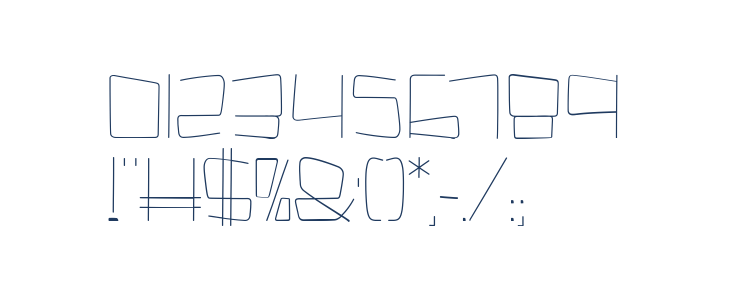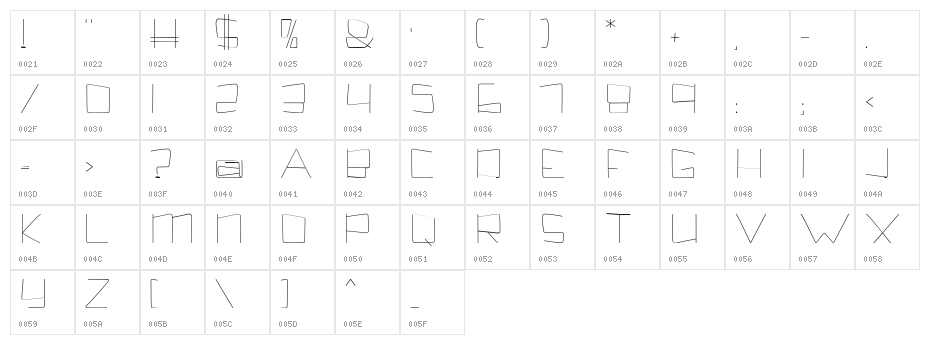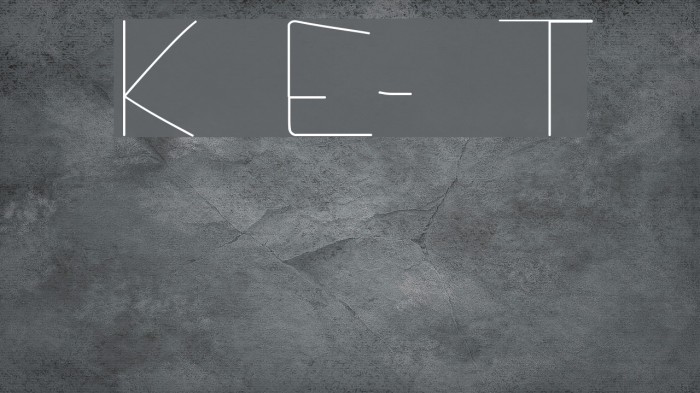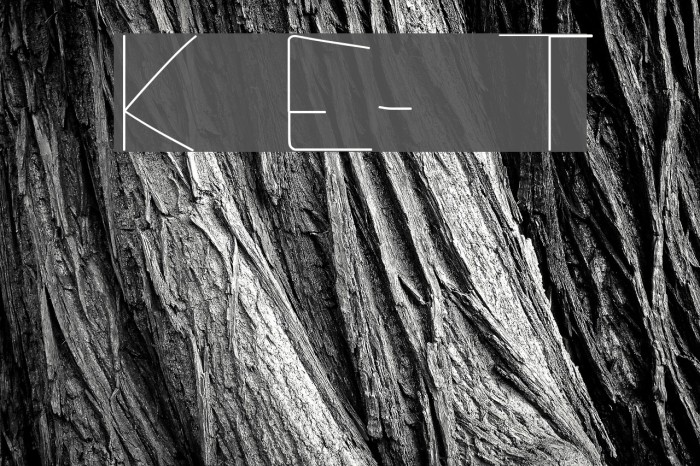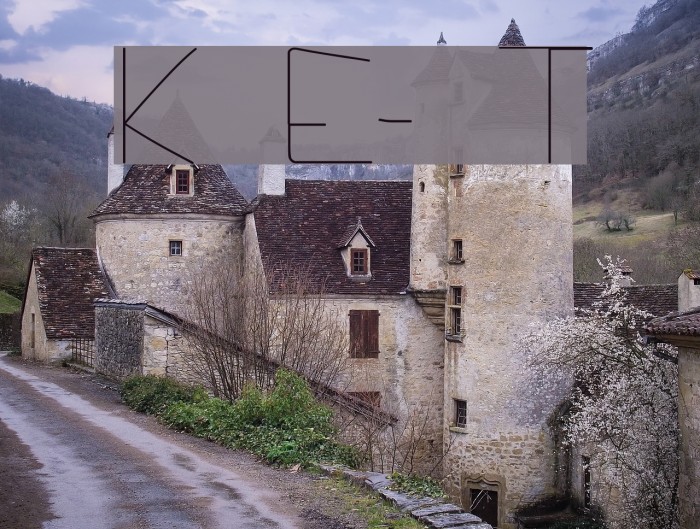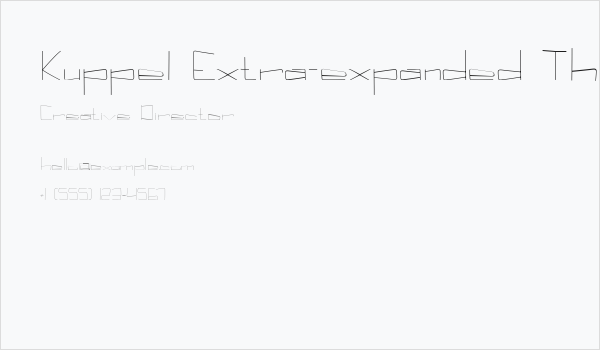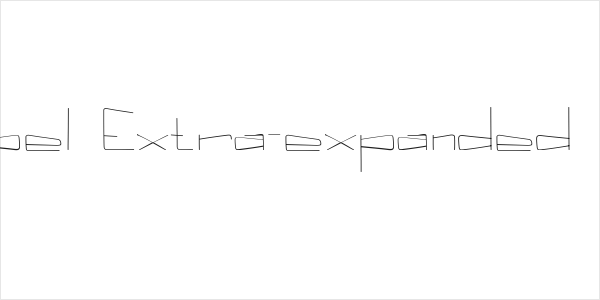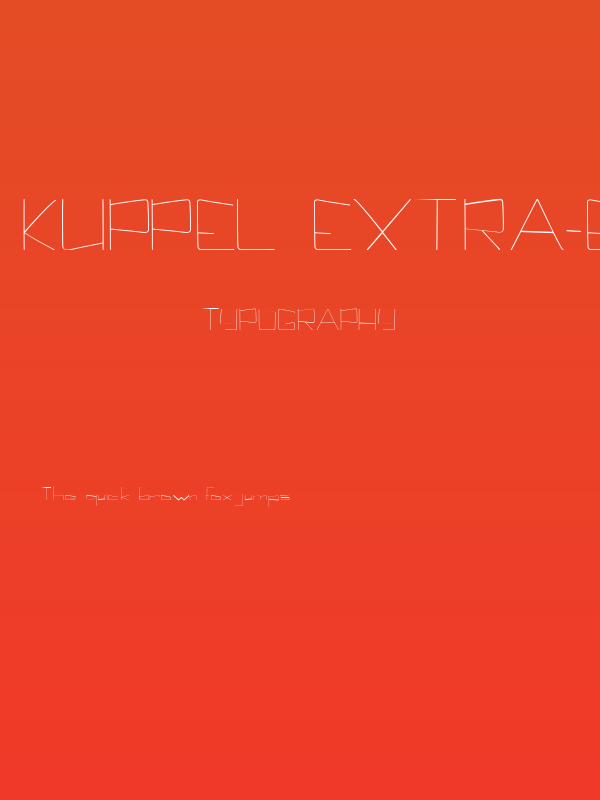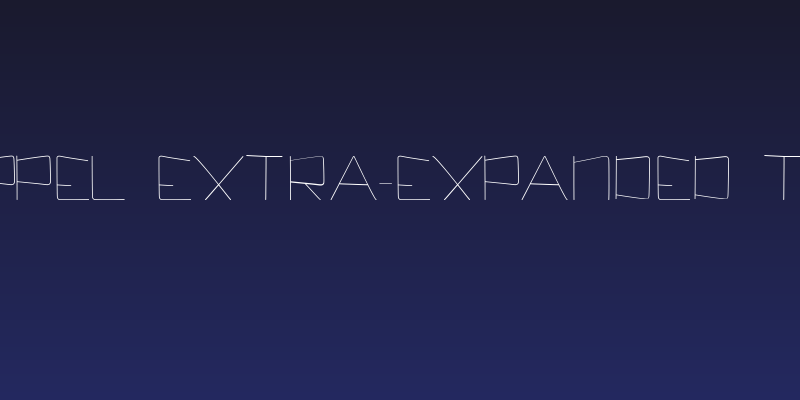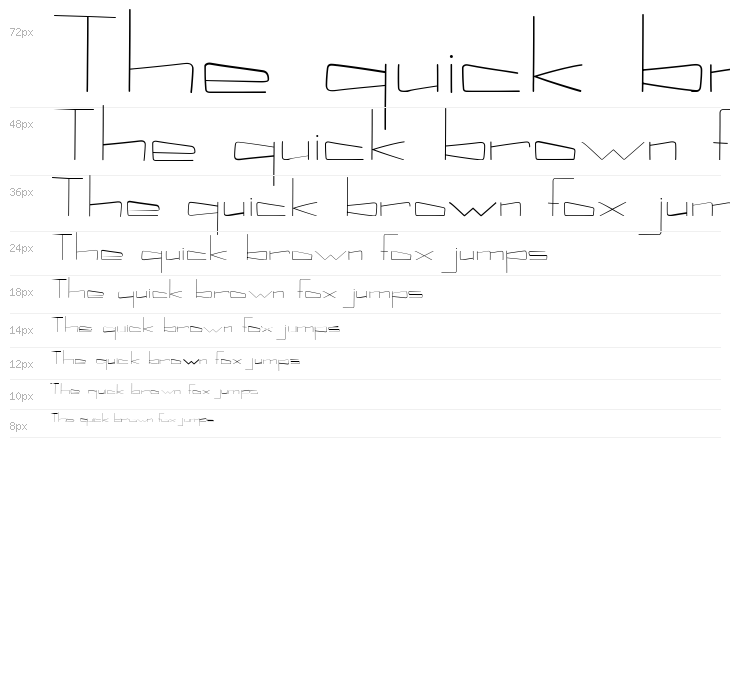
Kuppel Extra-expanded Thin Font
Kuppel Extra-expanded Thin Description
This font features a unique, geometric design with thin, linear strokes that create a modern and minimalist appearance. The characters are constructed with a series of straight lines and sharp angles, giving it a futuristic and technical feel. The uppercase and lowercase letters maintain a consistent style, with a focus on simplicity and clarity. The numerals and special characters follow the same design principles, ensuring uniformity across the entire typeface. Its expanded width allows for excellent readability, making it suitable for various design applications.